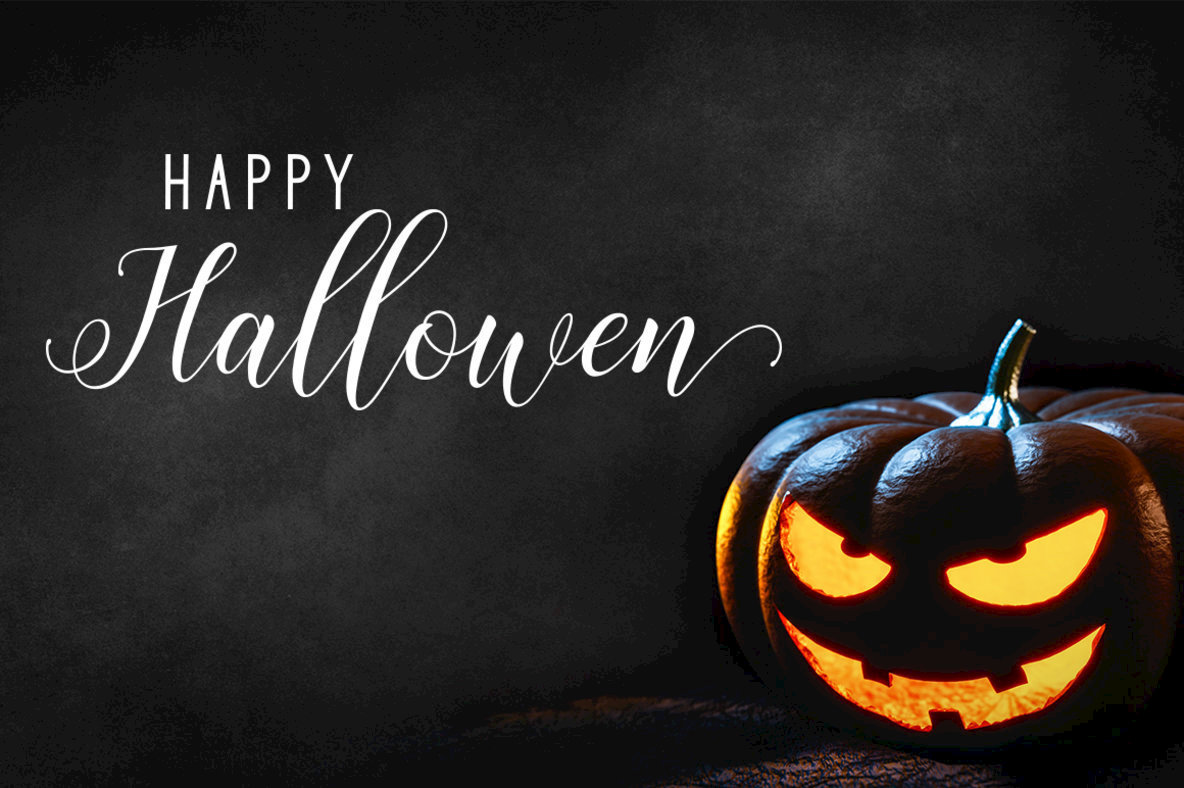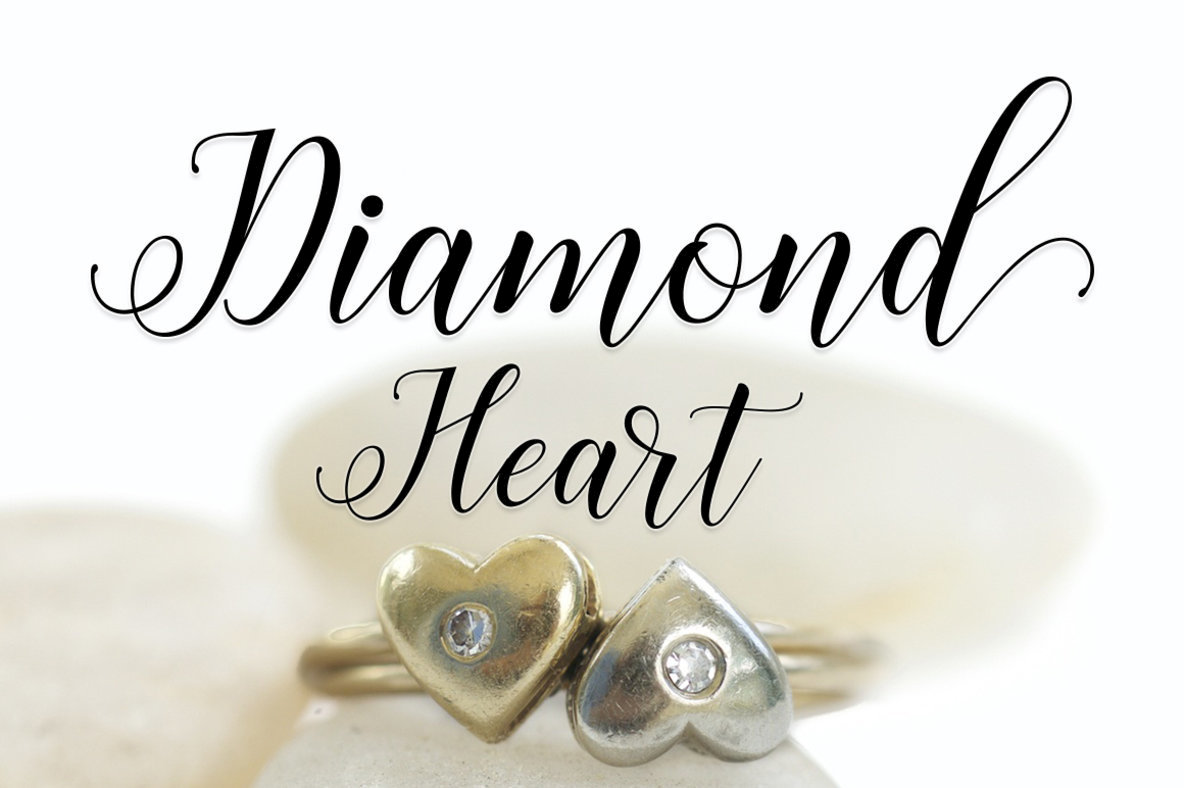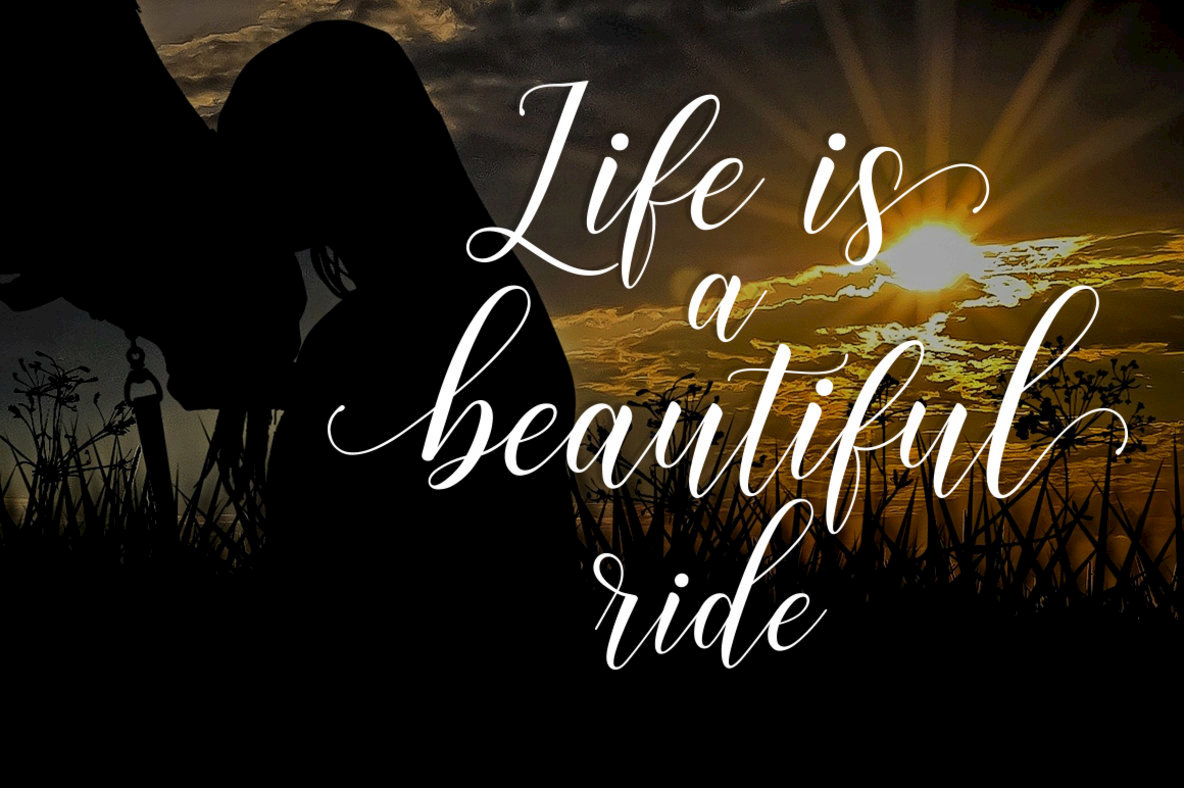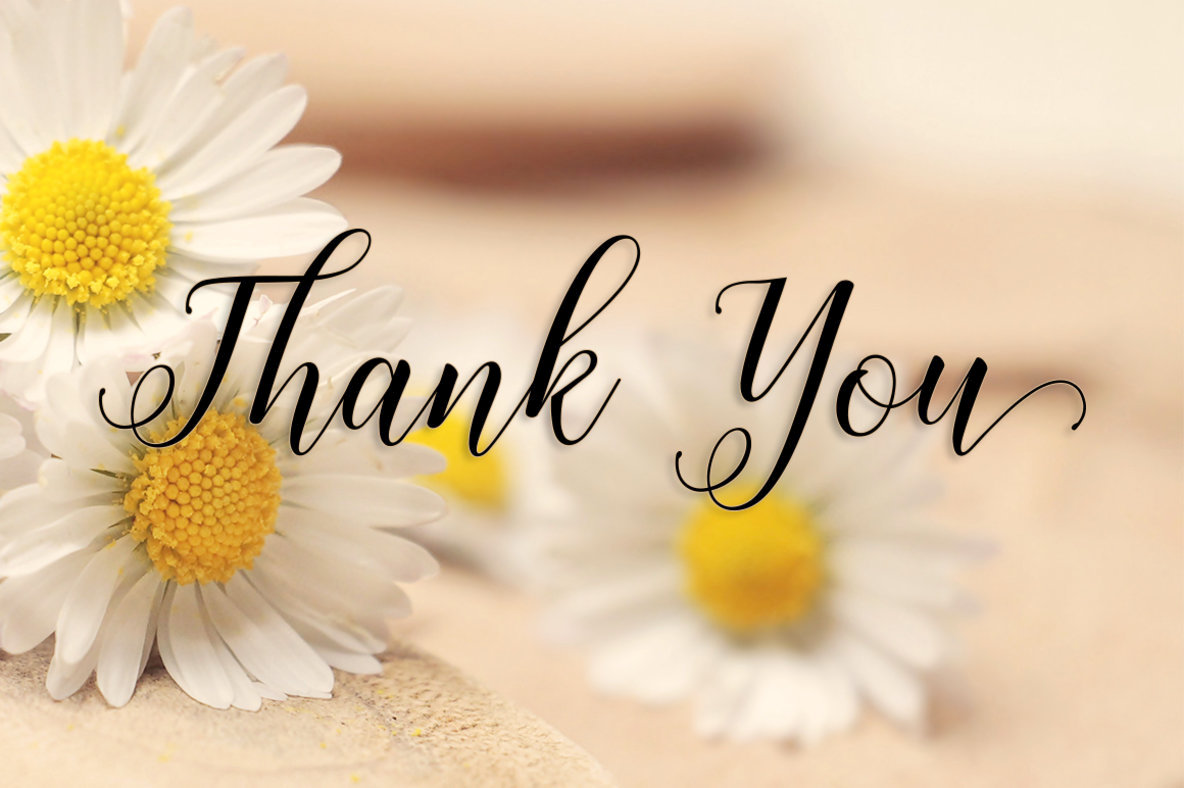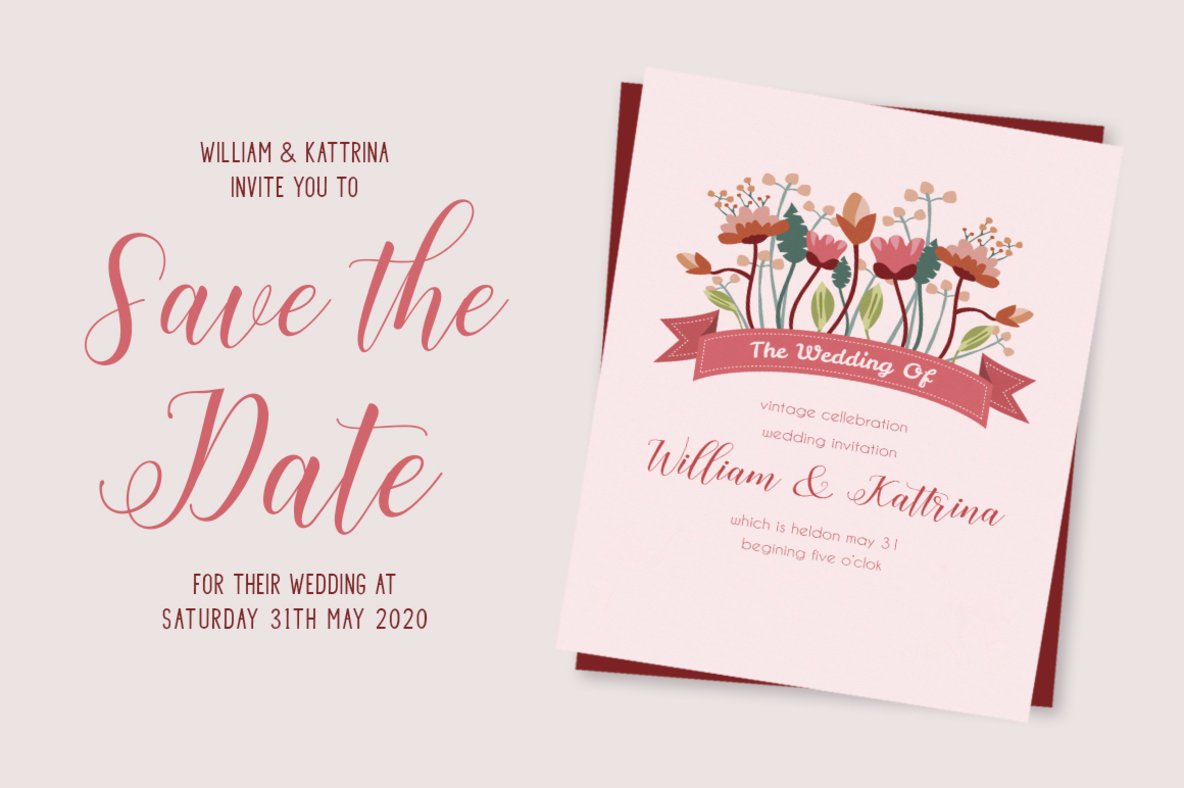
Histeria Font
Histeria Script
Embrace a fresh approach to modern design with Histeria, an enchanting script font that melds handmade calligraphy with contemporary style. Its decorative flair and dynamic baseline make it a perfect choice for invitations, greeting cards, and branding materials. Whether crafting quotes or designing posters, Histeria provides a versatile touch to any project. Unlock the decorative potential of Histeria with ease using tools like Font Book or Character Map if your software does not support OpenType features. Enhance your designs with the elegance of Histeria, blending traditional craftsmanship with contemporary aesthetics.Histeria: Exquisite Script for Elegant Projects